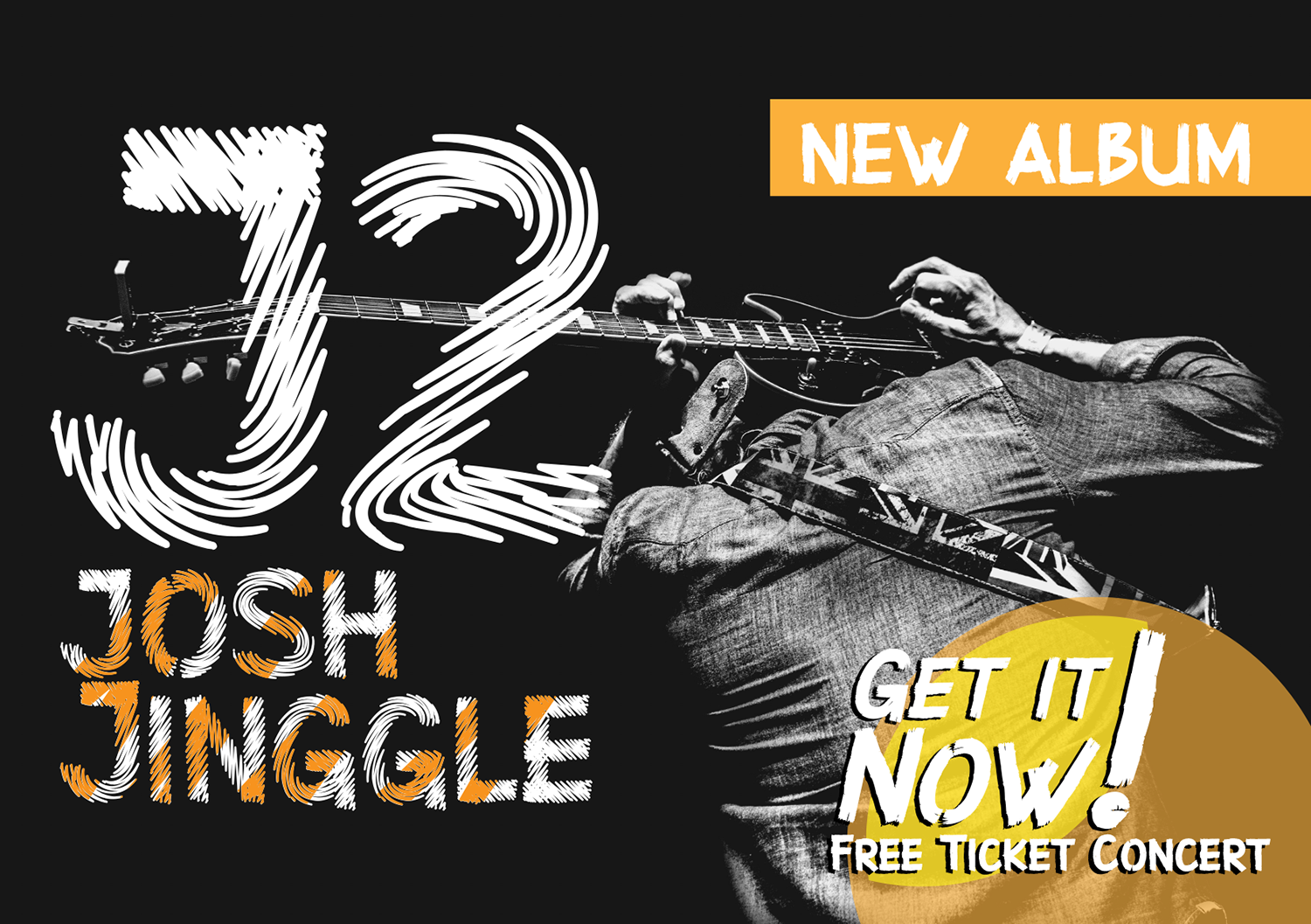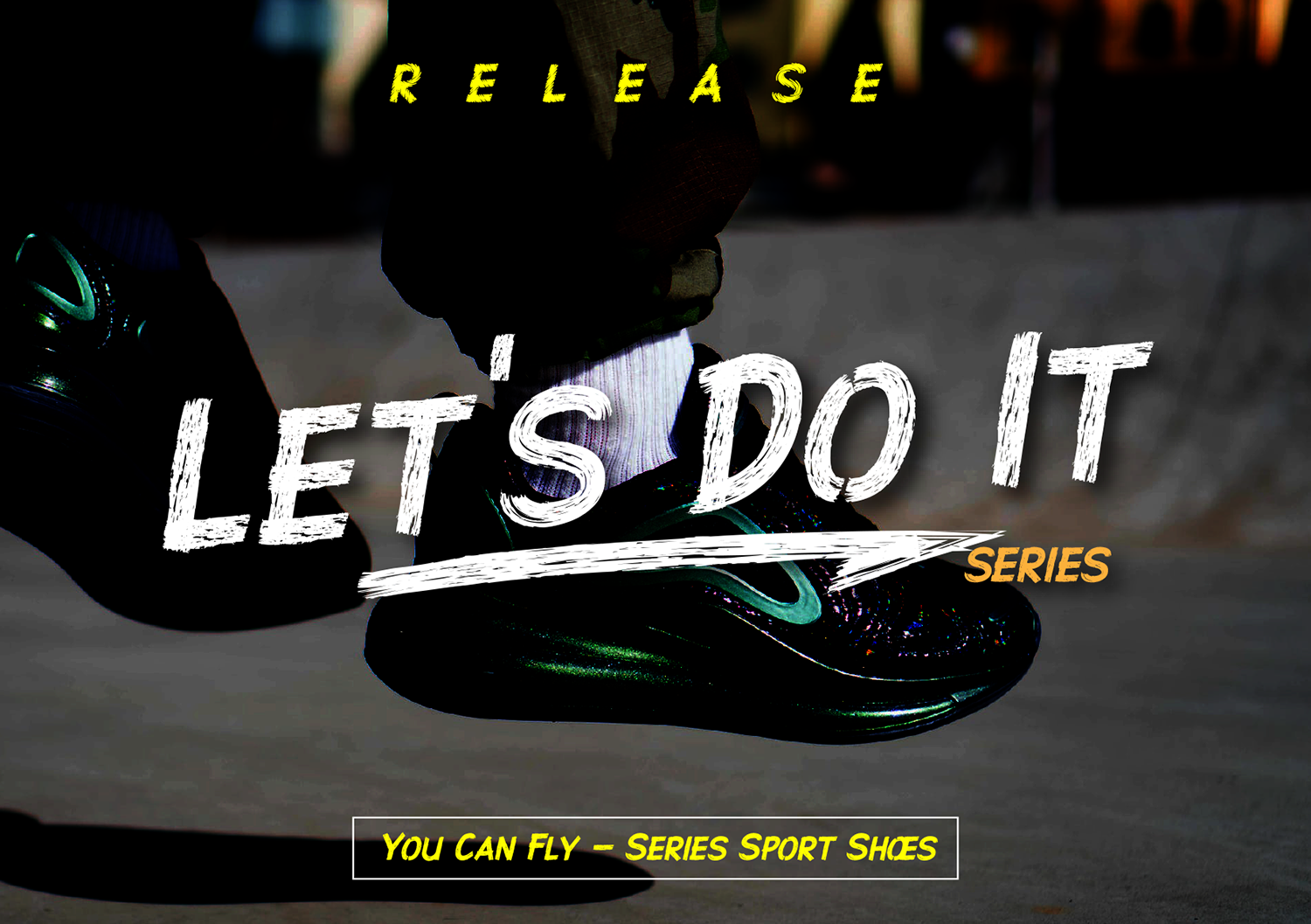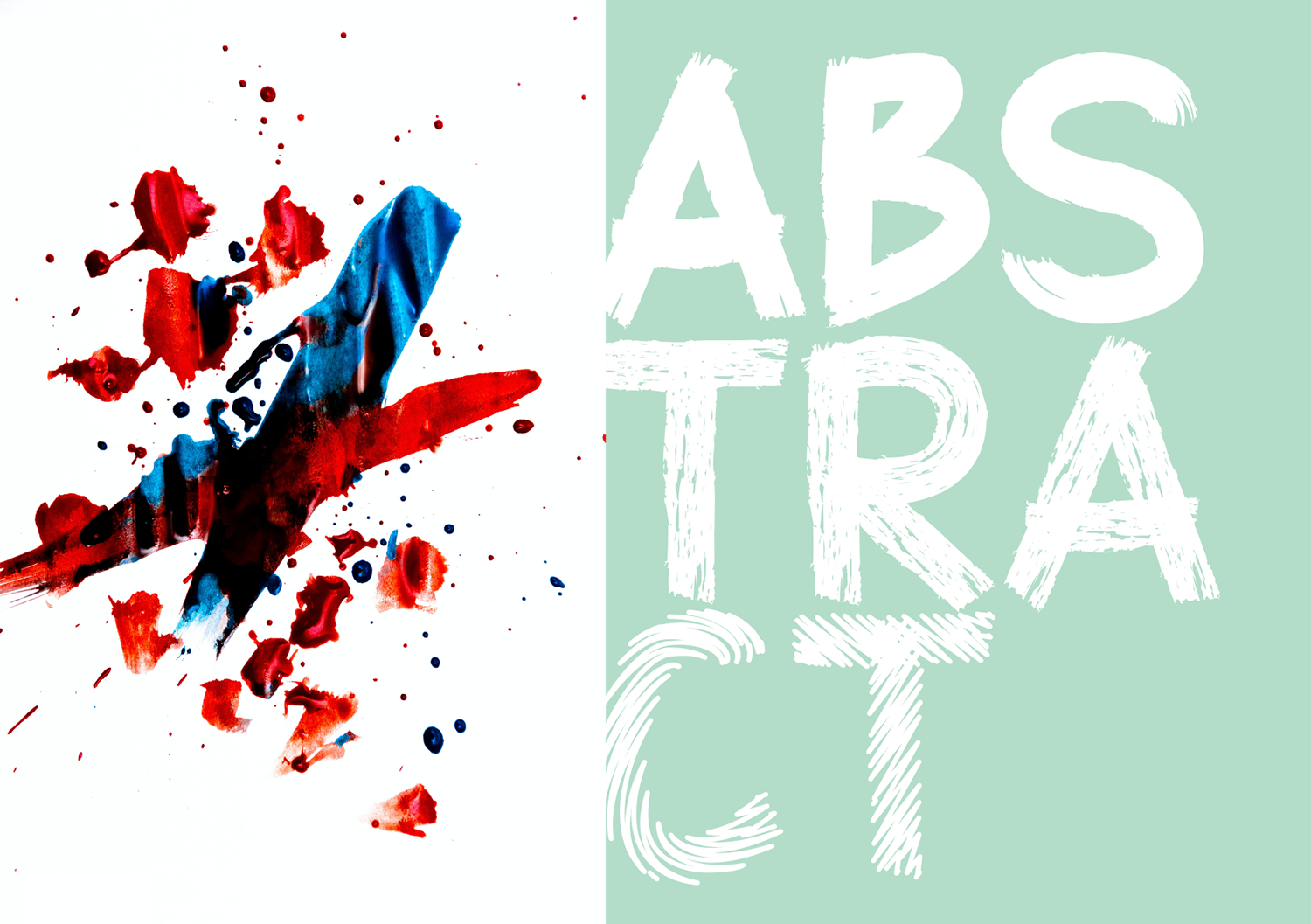
Superstition Free Font
Superstition Free Font results out of a stunning pairing of a brush pen and pencil that makes it look incredibly endearing and authentic. This free typeface was designed by the talented Galihย S. Aji. If you like it donโ€™t forget to check out the full version.